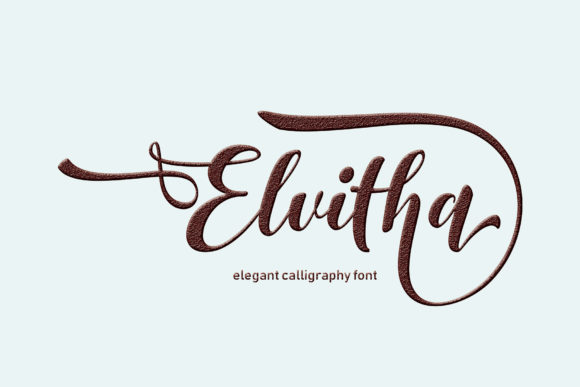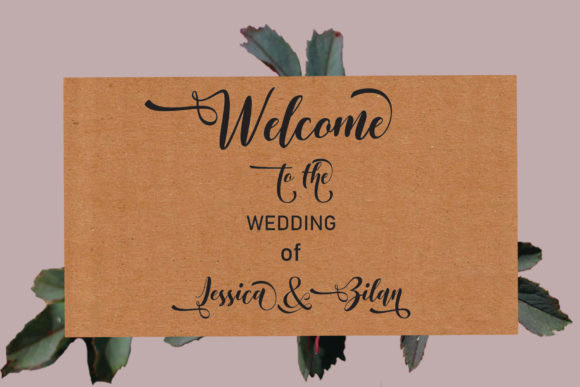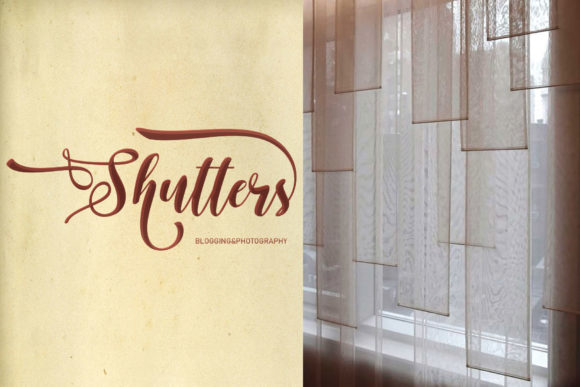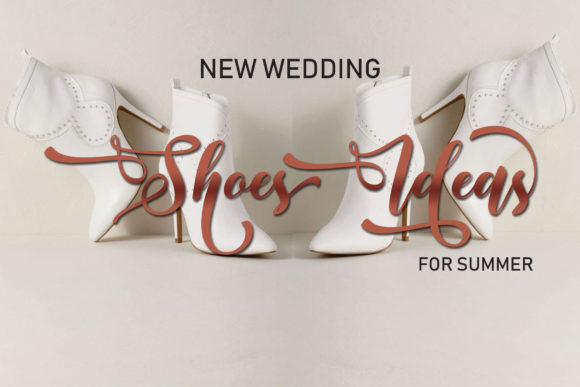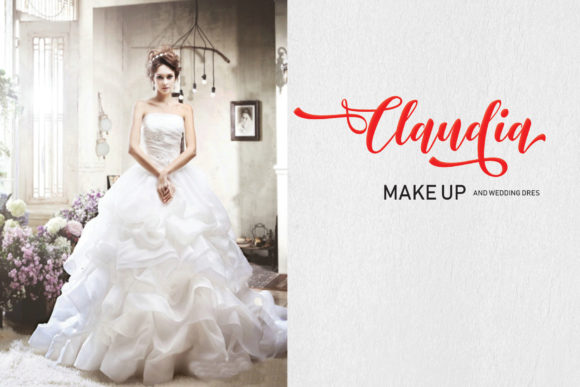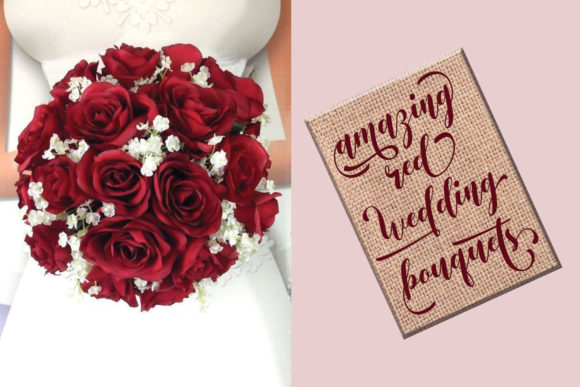
The Elvitha Font: A Designer’s Dream Come True
I’ll never forget the moment I stumbled upon the Elvitha font while working on a craft project for a client. I was searching for a script font that exuded elegance and authenticity, but everything I found seemed either too bland or too over-the-top. That’s when I discovered Elvitha, and it was love at first sight! 💕
Elvitha is an equally elegant and authentic script with beautiful swashes, making it an extraordinary crafting font. Its unique blend of classic and modern elements makes it perfect for designers, crafters, and creative hobbyists looking to add a touch of sophistication to their projects.
An Honest Review of Elvitha
What I Love About Elvitha ✨
- 💫 Elegant and authentic script with beautiful swashes
- ✅ Highly versatile and suitable for various design projects
- 🎨 Beautifully crafted glyphs and stylistic alternates
- 👍 Excellent for crafting, invitations, and social media graphics
While Elvitha is an amazing font, there are a few things to keep in mind:
- 🤔 Some users may find the font a bit challenging to read at small sizes
- ⚠️ Limited availability of condensed or bold weights
The Story Behind Elvitha
Elvitha was designed with the intention of creating a beautiful, elegant script that would inspire crafters and designers to create something extraordinary. The font’s creator drew inspiration from classic calligraphy and modern digital design, resulting in a unique and versatile font that’s perfect for a wide range of projects.
| Font Name | Elvitha Font |
| Author | Arie Design |
Q: What makes Elvitha an extraordinary crafting font?
A: Elvitha’s unique blend of classic and modern elements, along with its beautiful swashes and glyphs, make it an excellent choice for crafters and designers looking to add a touch of sophistication to their projects.
Q: Is Elvitha available in different weights?
A: Currently, Elvitha is available in a single weight. However, the font’s creator may release additional weights or variations in the future.